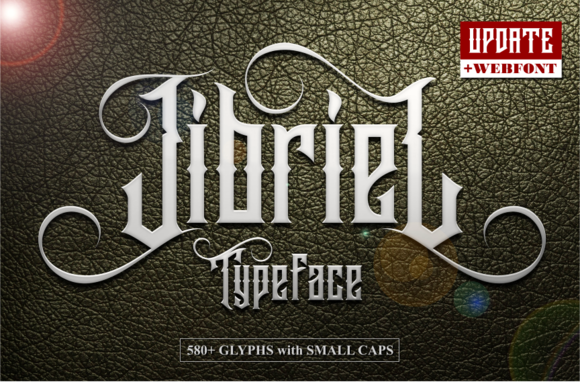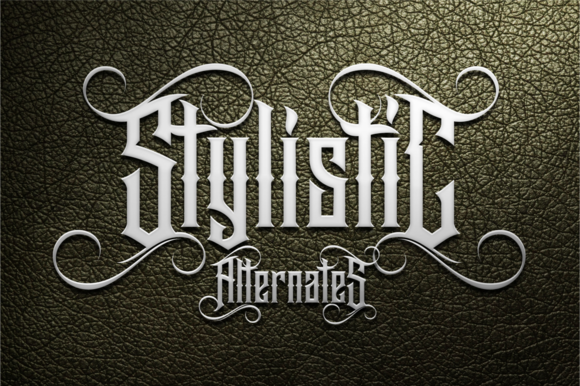
Jibriel Font
About Jibriel Font
Dive into the captivating world of Jibriel, a font that brings an extraordinary blend of tradition and innovation to your design projects. This highly decorative blackletter font is more than just typography—it’s a gateway to creating unique, standout designs. With Jibriel, the ordinary becomes extraordinary, as it comes packed with alternative fonts that allow for endless creativity and customization. Whether you’re a graphic designer, a branding specialist, or simply a typography enthusiast, Jibriel promises an unparalleled design experience. Let’s explore what makes Jibriel not just a font, but a journey into the art of typography.
Jibriel Blackletter Font
At its core, Jibriel is a testament to the enduring allure of blackletter typography. Originating in the medieval era, blackletter fonts carry a rich history and a distinctive aesthetic that have been reimagined through Jibriel. This font stands out for its highly decorative elements, seamlessly blending historical charm with contemporary flair.
Embracing Versatility and Creativity
One of Jibriel’s most compelling features is its versatility. The download comes packed with alternative fonts, each offering its own unique twist on the classic blackletter style. This diversity allows designers to mix and match different fonts within the Jibriel family, unlocking a world of creative possibilities. From elegant invitations to bold branding materials, Jibriel adapts to your creative vision, making every design project distinctly yours.
A Unique Experience Awaits
The true magic of Jibriel lies in the unique experience it offers. It’s not just about choosing a font; it’s about crafting a narrative through typography. Jibriel invites you to experiment, to blend tradition with innovation, and to create designs that speak volumes. Whether you’re aiming for an air of mystery, a touch of elegance, or a bold statement, Jibriel provides the tools to bring your creative vision to life.
In conclusion, Jibriel is more than a highly decorative blackletter font; it’s a journey into the heart of creativity. Its versatility and rich array of alternatives offer a unique experience that encourages experimentation and personalization. Embrace the unique experience of Jibriel, and let it transform your designs into works of art that stand out in a sea of sameness.